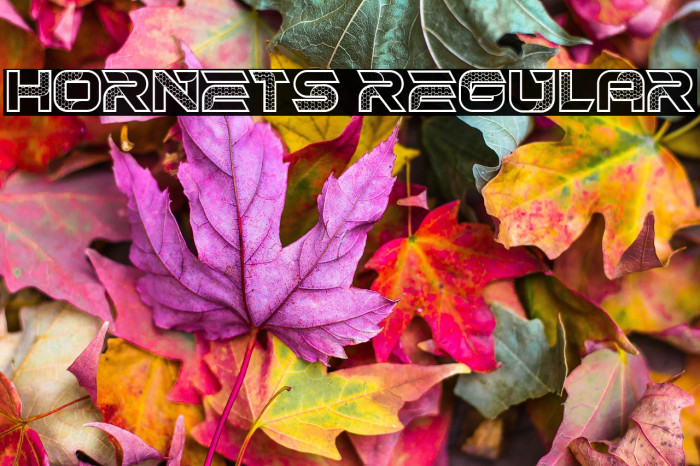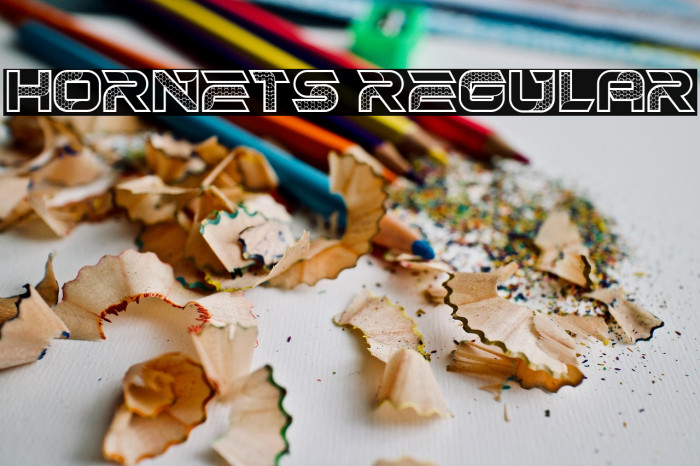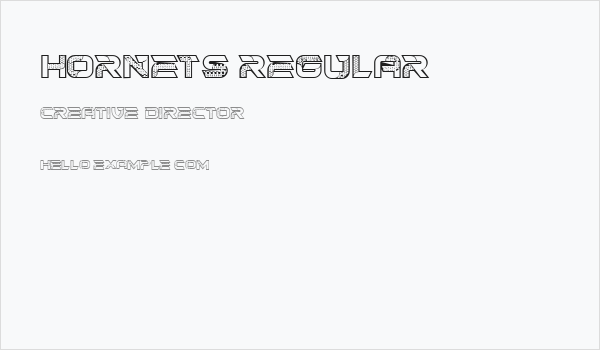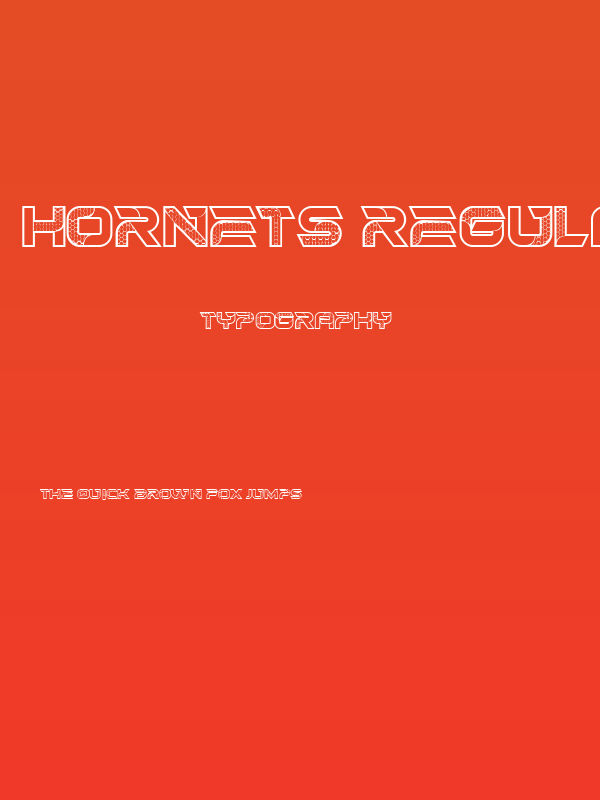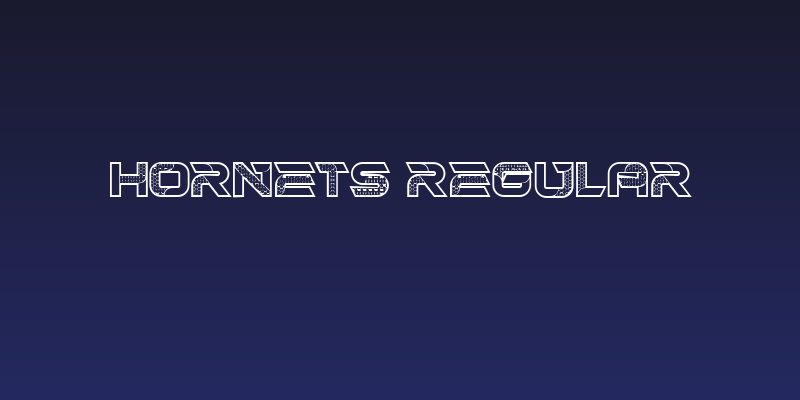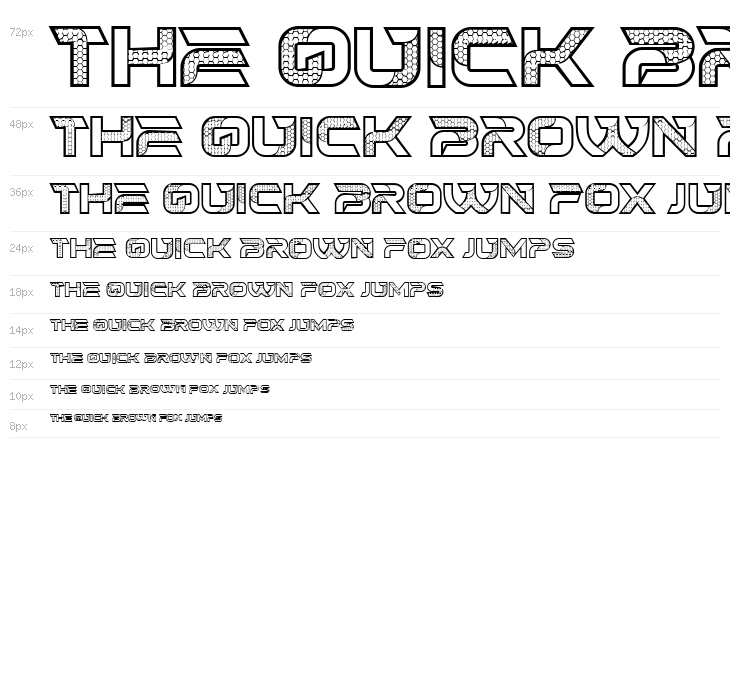
Hornets Regular Font
Hornets Regular Description
This font features a bold, geometric design with a distinct outline and a textured fill. The characters are constructed with sharp angles and clean lines, giving it a futuristic and dynamic appearance. The uppercase letters are uniform in height, with consistent spacing that enhances readability. The textured fill within each letter adds depth and visual interest, making it stand out in any design. This font is ideal for projects that require a modern and edgy look, such as sports branding, posters, and digital media. Its unique style captures attention and conveys a sense of energy and movement.
| Proposed Projects | Ideal for sports branding, posters, digital media, and any project needing a modern, edgy look. |